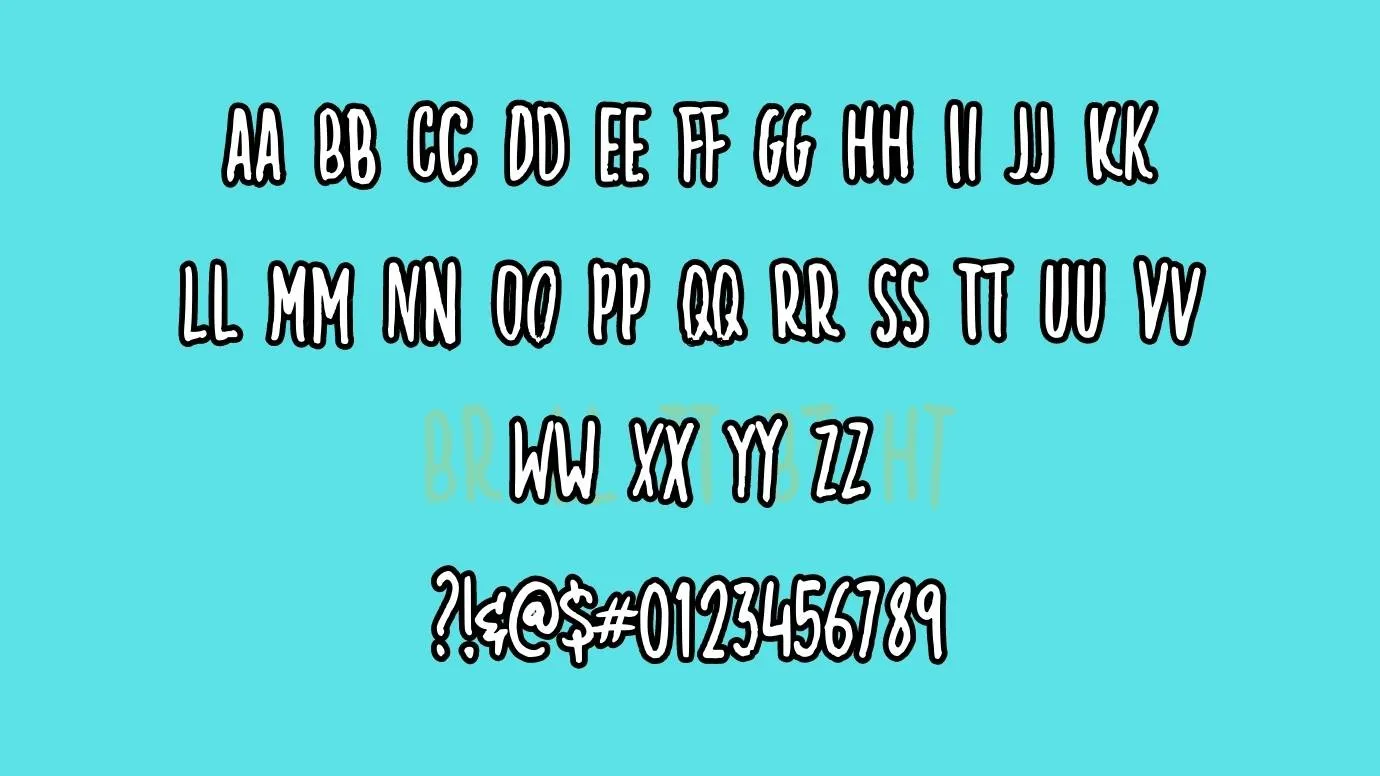
In this post, We decided to present Creamy Coconut Font which is a script typeface. This awesome typography comes with tall letters and a bold script look. Kurnia Setyadi is the main and original designer of this amazing script font.
Its text generator tool is a fully free tool for designers is the perfect choice. This script font is easily specified in different languages and is also good for pairing with similar script fonts like sweet purple font which is also similar script font.
Advanced Key Features of Creamy Coconut Font
A few common and advanced features of this typeface make it impressive. The main feature of this typography is its advanced styles like regular, bold, thin, and condensed. All of these weights with fantastic styles make this font family stylish when used in designs.
This font has uppercase, special, and lowercase characters along with numerals and general punctuations. The uppercase letters of this typeface are easily readable as compared to lowercase letters. That’s why most designers use this typeface for their projects.
Font Information
NameCreamy Coconut Font
DesignerKurnia Setyadi
TypeScript
Creamy Coconut Font Family (Includes 04 Typeface)
• Creamy Coconut Regular
• Creamy Coconut Thin
• Creamy Coconut Bold
• Creamy Coconut Condensed
Usage Guidelines For Creamy Coconut Font
This eye-catching font is well-suitable for banner designs, poster designs, stylish headlines, animated book covers, and emblems design purposes. Due to its huge popularity, many famous companies pick it for their product brandings like noodles, drinks, chicken Chinese, and different recipe descriptions.
Creamy Coconut Font
This modern look texture is suitable for title designs, different post-heading, and templates design. If you want to create themes, landing pages, and slide show pages for different websites then this font is the perfect option at the place of using any font. You can easily utilize this font in symbols and names designed for products.
For use in printing t-shirts, pants, and kid’s clothes designs, this comic look font is the perfect option for you. This font is appropriate for use in more effective projects by making paired with oliver font which comes in the script font family. It is also suitable for magazine and newspaper design purposes.
Who is the designer of Creamy Coconut Font?
Kurnia Setyadi is the designer of this eye-catching script typeface that has multiple features with stylish alternates.
What is the use of the Creamy Coconut typeface?
This texture has a lot of uses that are many helpful for designers like logo designing, stylish card designs, attractive theme designing, and web purposes.
Is there any similar font to Creamy Coconut Font?
Yes, the Buttercup font is the similar font to this typeface however, many fonts are available here that are alternatives to this.